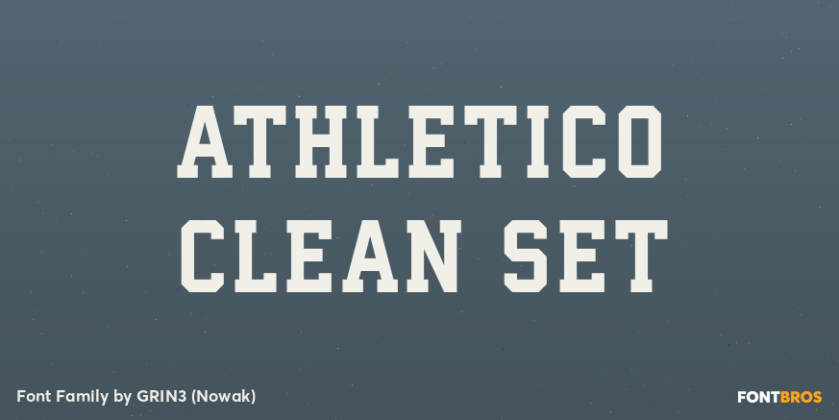
Athletico Clean Set
About Athletico Clean Set
Athletico Clean is a clean version of Athletico font, inspired by college and university sportswear lettering. Language support includes Western, Central and Eastern European character sets, as well as Baltic and Turkish languages.